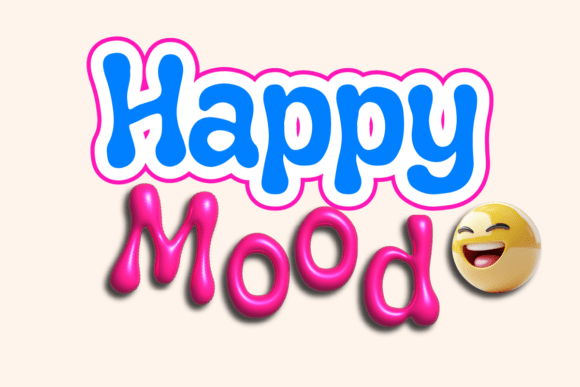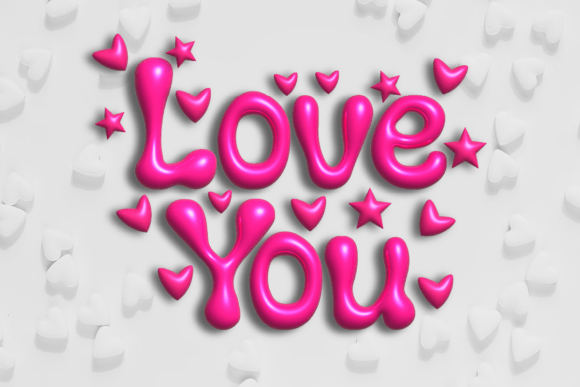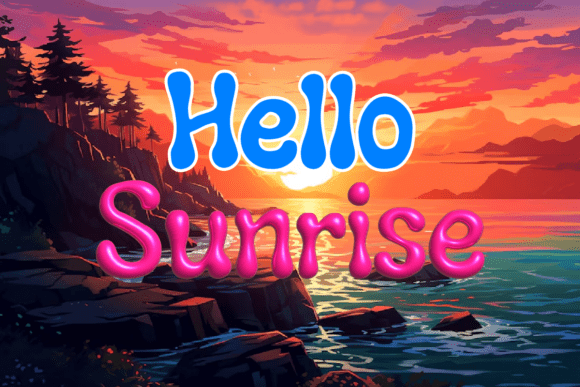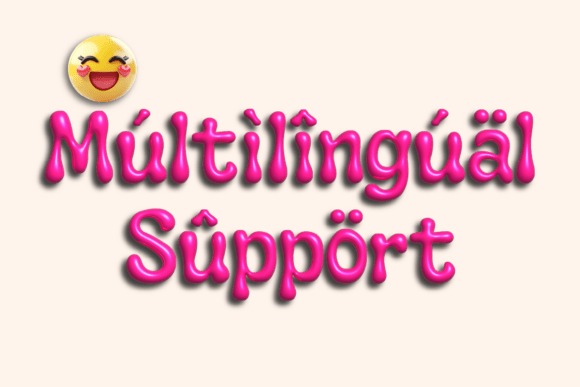
Get Ready to Pop with the Daisydumpling Outline Font
Remember the thrill of blowing up a balloon for a birthday party? The anticipation, the excitement, and the joy of watching it transform into a vibrant, colorful sphere? That’s the exact feeling you’ll get when you use the Daisydumpling Outline Font in your designs. This playful, bubbly display font is bursting with personality, crafted in a glossy, inflated style that will make every word pop visually.
The Daisydumpling Outline Font is perfect for designers looking to add a lighthearted, whimsical touch to their projects. With six versatile styles to choose from, you can create a wide range of designs, from children’s illustrations to party invitations and cheerful merchandise. And with its ultra-realistic 3D-style balloon SVG font, you’ll be able to add an extra layer of depth and texture to your work.
Whether you’re a seasoned designer or just starting out, the Daisydumpling Outline Font is a valuable addition to your toolkit. Its exclusive compatibility with popular design software like Photoshop and Illustrator ensures that you can fully unleash its creative potential.
Daisydumpling Outline Font Key Features
- Unique Characteristic: The Daisydumpling Outline Font features a distinctive outline style, with bold lines and rounded edges, creating a playful and whimsical feel perfect for children’s books, educational materials, and other creative projects.
- Font Style and Variations: The font is available in multiple styles, including regular, bold, italic, and bold italic, providing users with flexibility and versatility in their design choices.
Daisydumpling Outline Font Review
I’ve had the chance to work with the Daisydumpling Outline Font, and I must say it’s a unique addition to any design project. ✨ One of the things that stands out about this font is its playful and whimsical feel. It’s perfect for projects that require a touch of elegance and sophistication, but also a bit of quirkiness. ✨ The font’s outline style gives it a fun and modern look that’s sure to grab attention.
However, there are some limitations to consider. ⚠️ The font may not be suitable for projects that require a lot of text, as the outline style can make the text difficult to read at smaller font sizes. ⚠️ Additionally, the font’s eccentricities may not be to everyone’s taste, and some designers may find it too playful or over-the-top.
- Unique outline style for a modern look
- Perfect for projects that require a touch of elegance and sophistication
- May not be suitable for projects with a lot of text
- Not for every designer’s taste
Overall, I think the Daisydumpling Outline Font is a great addition to any designer’s toolkit. While it may have some limitations, it’s a fun and versatile font that can add a unique touch to a wide range of projects.
The Daisydumpling Outline Font is perfect for creating whimsical and playful designs. Some common use cases include:
- Food and drink labels
Remember to experiment with different font sizes and styles to get the most out of this unique font.